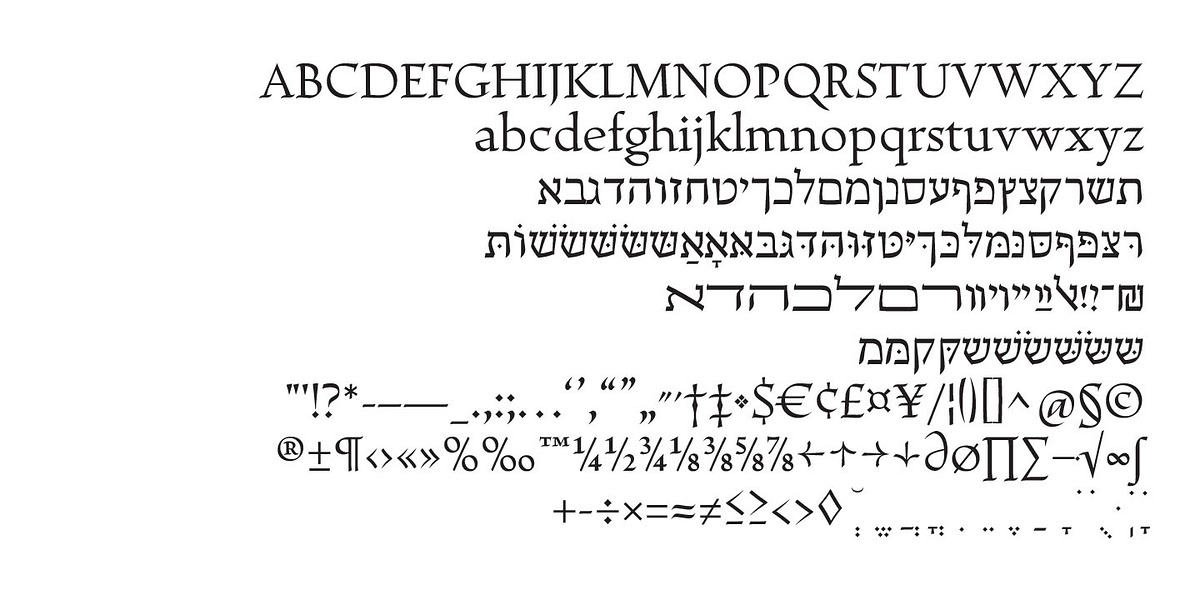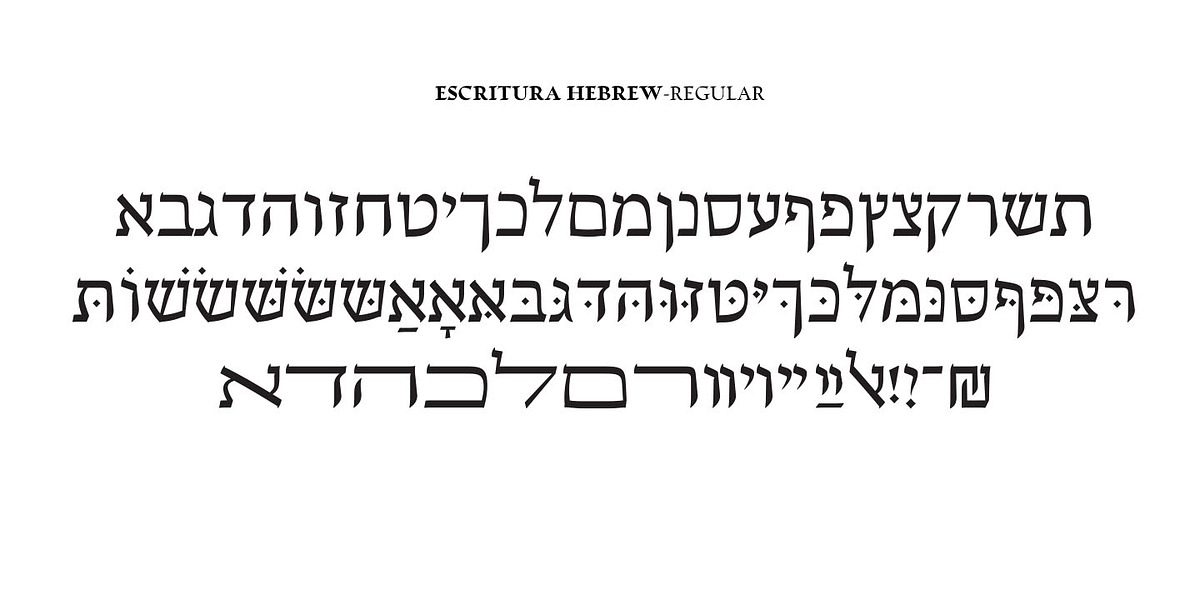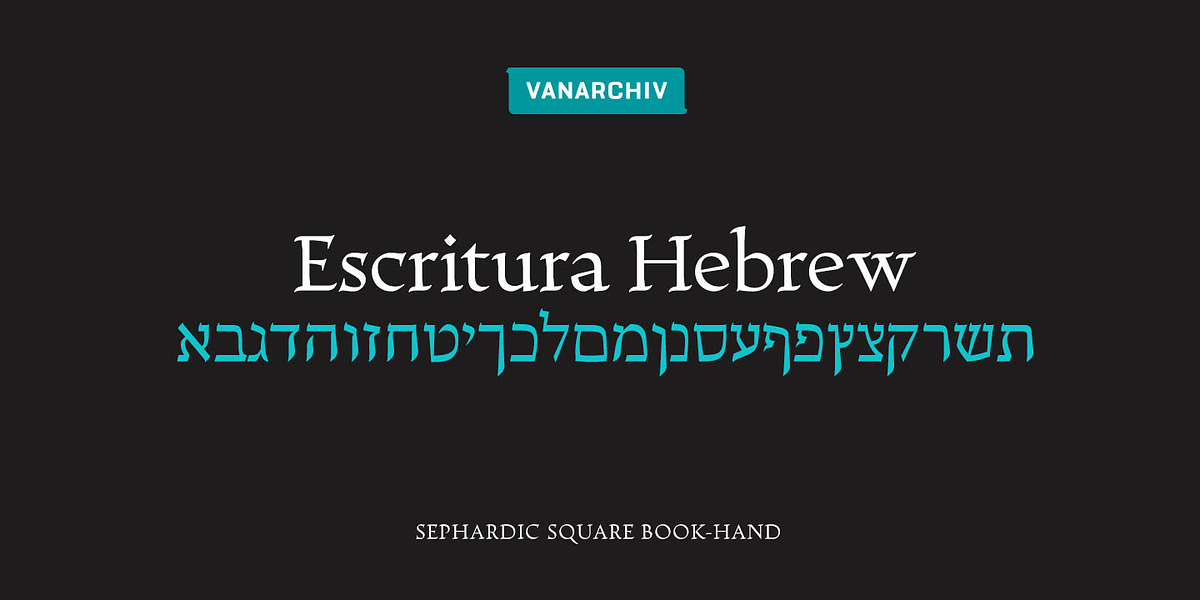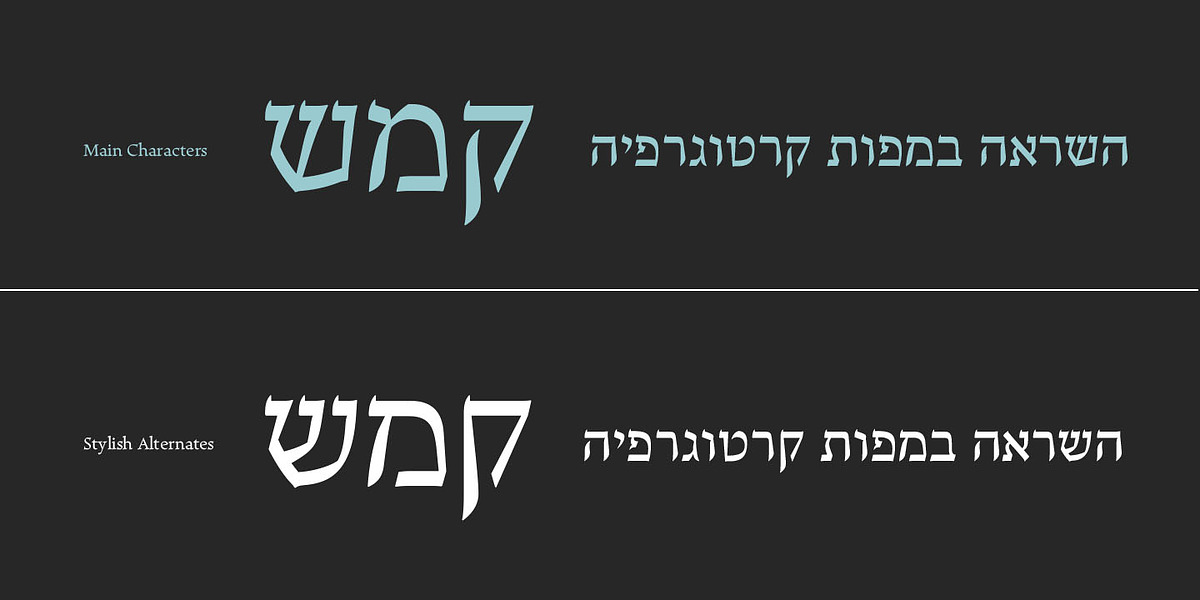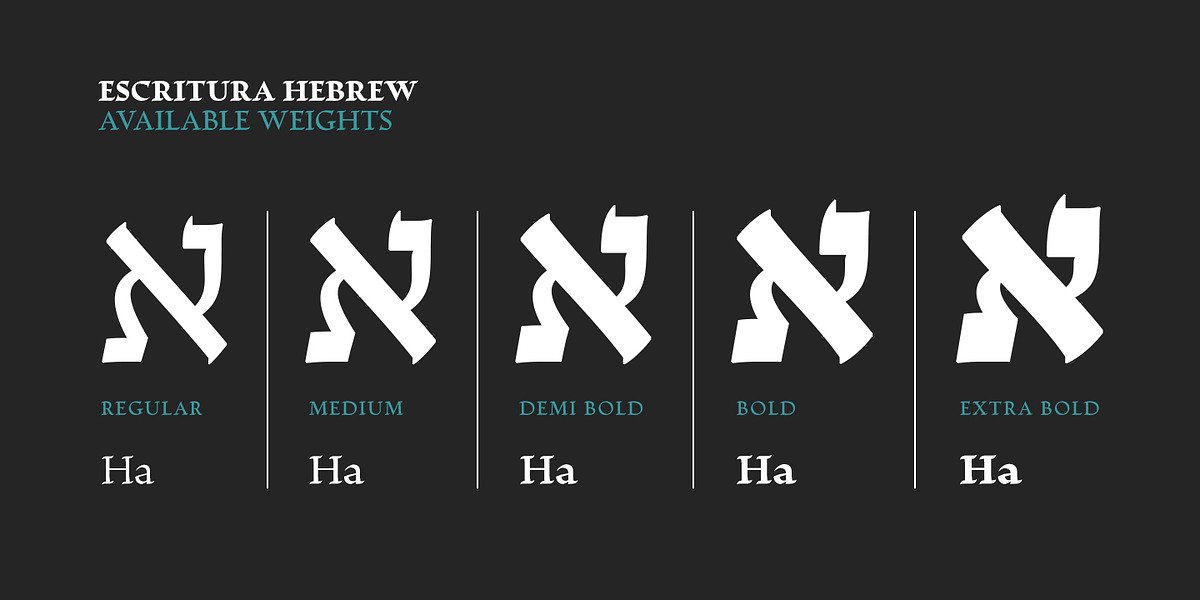
Escritura Hebrew
This Hebrew typeface was designed to harmoniously integrate with a previously existing Latin typeface. The designer drew inspiration from Italian Renaissance chancery handwriting, resulting in flowing forms and characteristic wavy serifs. To maintain visual balance, the Hebrew script features reverse contrast with taller vertical proportions and slightly bolder strokes compared to its Latin counterpart. The Sephardic script style influenced the overall design, incorporating interrupted strokes to mirror the calligraphic approach across both alphabets.